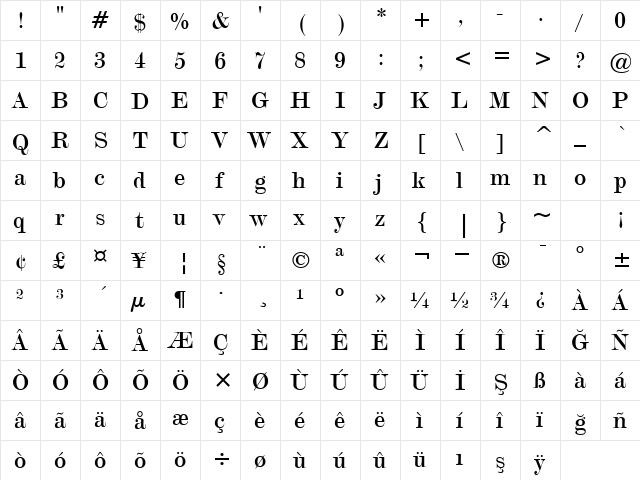
00480 Regular
Design Context for 00480 Typeface
00480 offers clean, dependable letterforms without strong stylistic allegiance, making it a practical choice for designers who need flexibility.